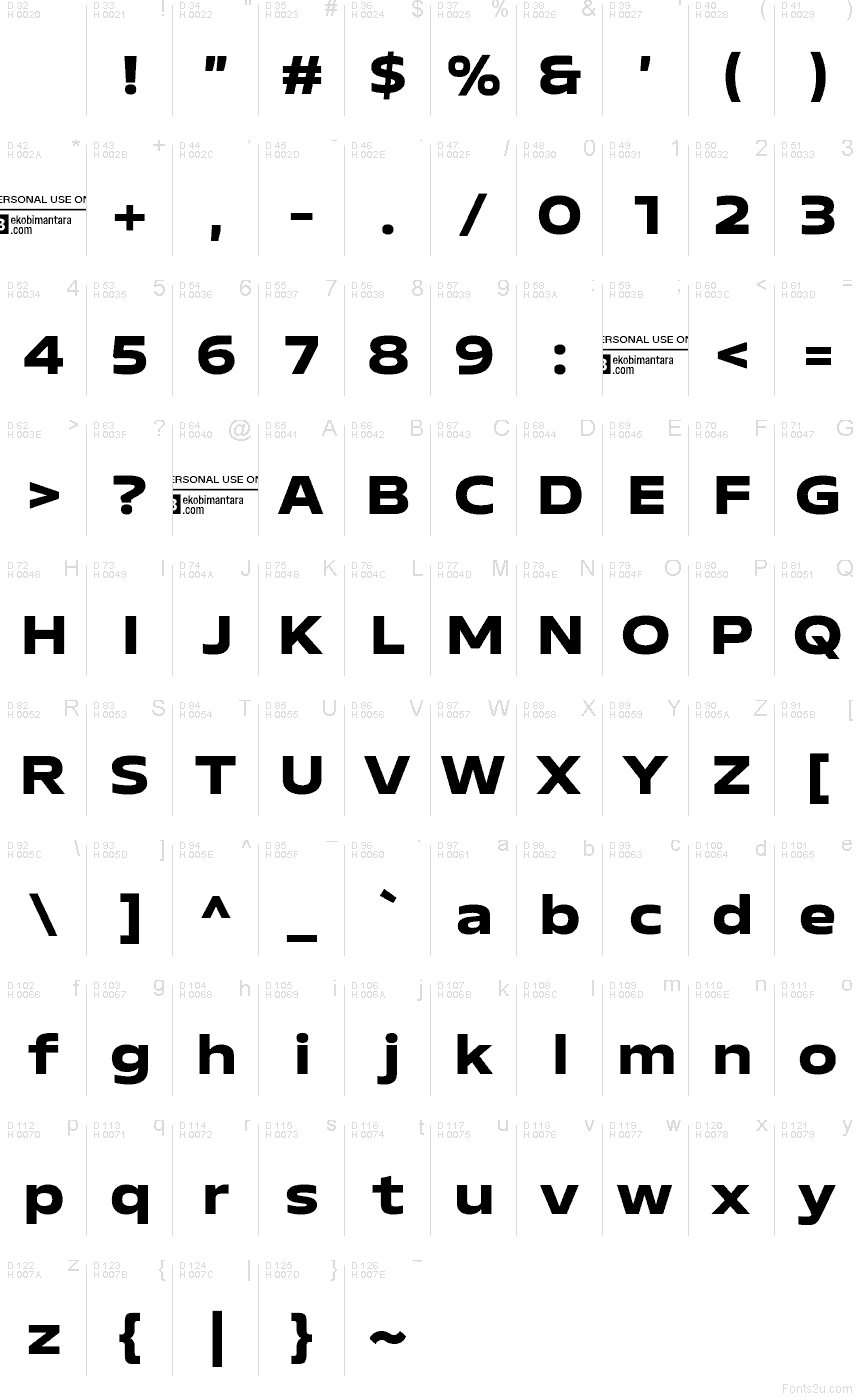
Profa Trial Black Expanded, a free heavyweight sans serif by Eko Bimantara, has the blunt, oversized presence of contemporary branding type. The letters feel broad and tightly packed, with soft corners and thick curves that keep the weight looking smooth rather than rigid, giving the font a compact, urban rhythm.
It suits poster headlines, sports branding, music covers, app splash screens, and packaging where a few big words need real mass. As a free font, it also makes sense for title cards, logo sketches, and short campaign lines, especially when you want rounded shapes and dense spacing to do most of the visual work.